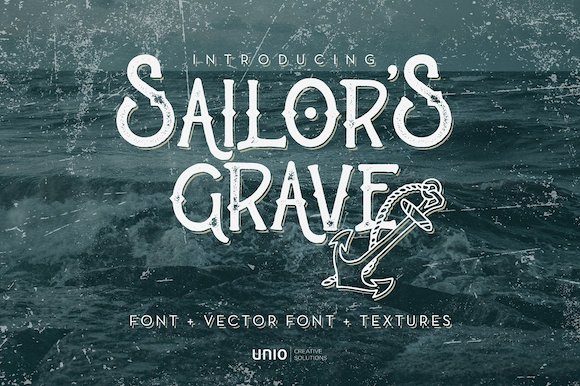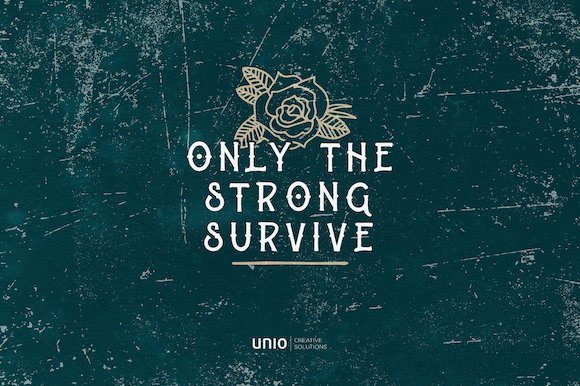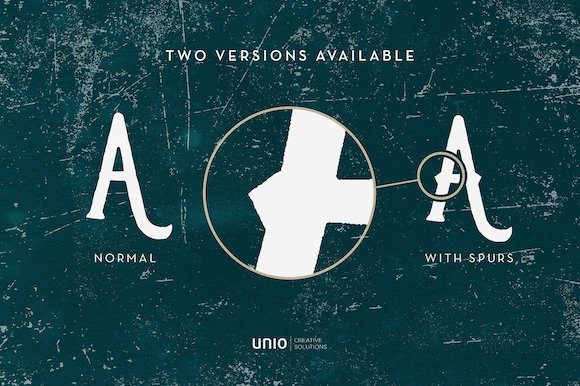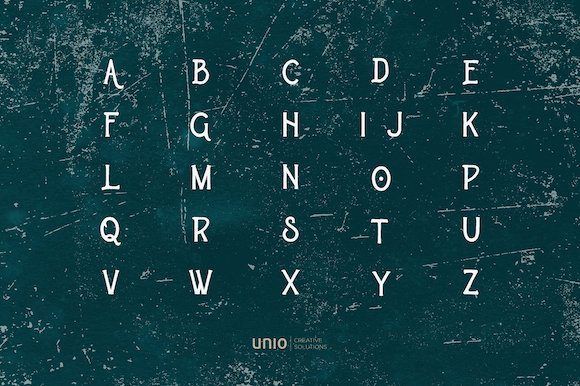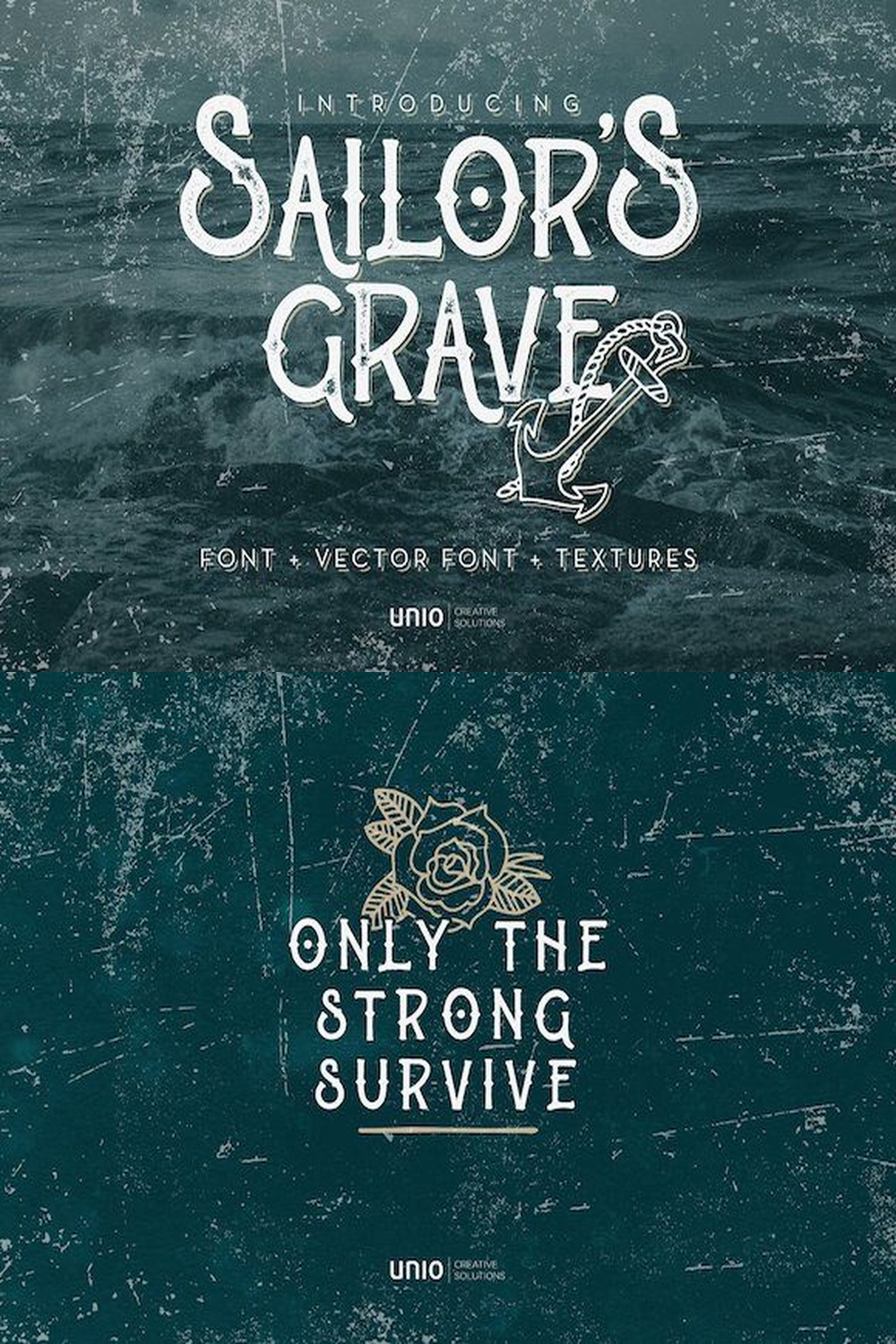
Sailor’s Grave Font
About the Sailor’s Grave Font
From logos to headlines, the Sailor’s Grave Font is the perfect choice for making a lasting impression. Sailor’s Grave is a retro inspired hand-drawn font family that has a raw and authentic vintage look & feel.
This font excels in headline use, particularly for projects with a nautical, vintage, or adventure theme. It’s ideal for branding materials like logos, posters, and packaging that require a strong, hand-crafted aesthetic. Avoid using Sailor’s Grave for body text or long-form content; its irregular nature hinders readability at smaller sizes.
The raw, slightly rebellious personality of Sailor’s Grave pairs well with clean sans-serif fonts like Open Sans or Lato for a balanced contrast. For a more vintage feel, consider pairing it with a serif like Playfair Display or Merriweather. A touch of elegance can be achieved with a delicate script like Great Vibes, used sparingly as an accent.
Sailor’s Grave’s core personality is bold and adventurous, yet retains a handcrafted authenticity. It is best suited for brands that wish to convey a sense of history, grit, or a rugged, seafaring spirit.
Sailor’s Grave Font Usage Examples
Sailor's Grave Font Example